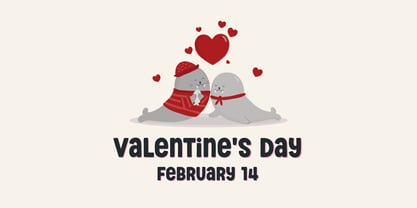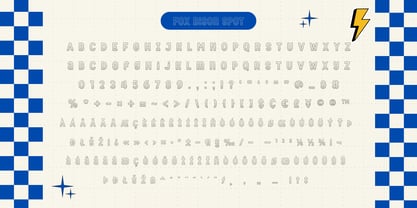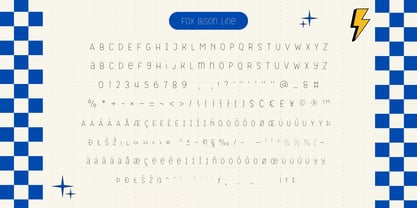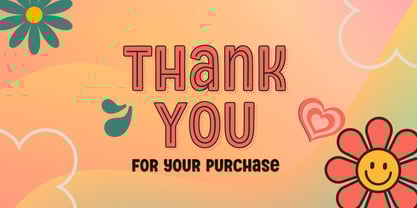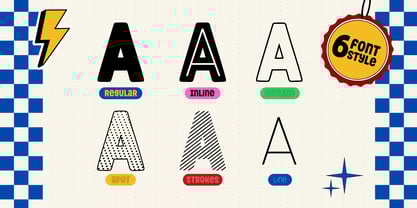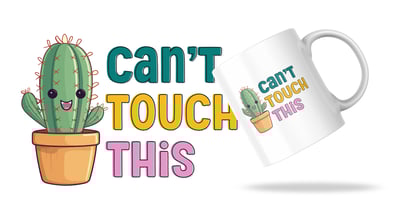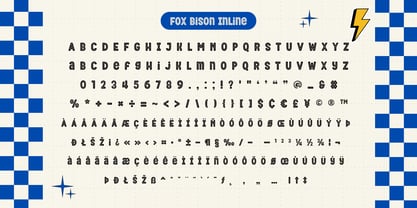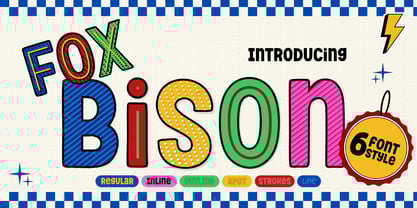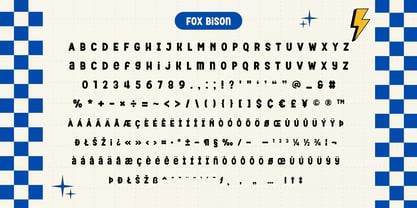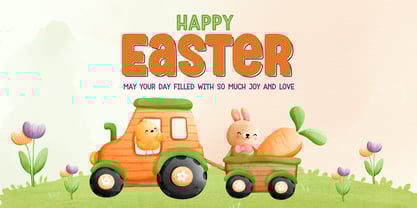
Fox Bison
by Fox7
The Fox Bison Font Family was designed by Rattana Rattanawan and published by Fox7. Fox Bison contains 6 styles and family package options.
Fox Bison is a 6 fonts style that cools cute and playful display font that adds a captivating and energetic touch to your designs. Perfect for use in publications, menus, logos, business cards, or even printed on t-shirts, these fonts exude uniqueness. Its main feature is its vibrant and expressive design, allowing you to create attention-grabbing headlines, t-shirt typography, banners, product labels, and more